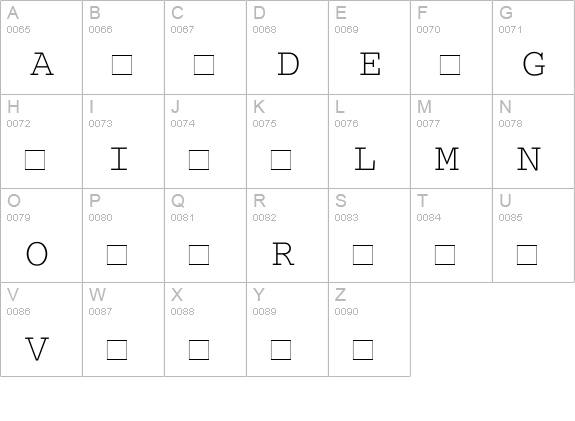
Pekka96 Font Details
Introducing Pekka96 font, a stunning and versatile typeface that will elevate your designs to new heights. This unique font embodies a perfect balance between modernity and elegance, making it suitable for a wide range of projects. Pekka96 font features a sleek and sophisticated design, with clean lines and sharp edges that exude professionalism. Its carefully crafted letterforms are both legible and eye-catching, ensuring that your message will be conveyed with utmost clarity and impact. But what sets Pekka96 font apart is its versatility. Whether you're designing a logo, creating a website, or crafting a poster, this font has the ability to adapt to any style or concept seamlessly. Its wide range of weights and styles allows for endless possibilities, ensuring that your creative vision will always be fully realized. And the best part? Pekka96 font is free! Yes, you read that right. This exceptional font is freely available to download at FontsMarket.com. We believe that great design should be accessible to all, and Pekka96 font embodies that philosophy perfectly. So, why wait? Don't miss out on the opportunity to elevate your designs with Pekka96 font. Download it now, and let your creativity soar to new heights.